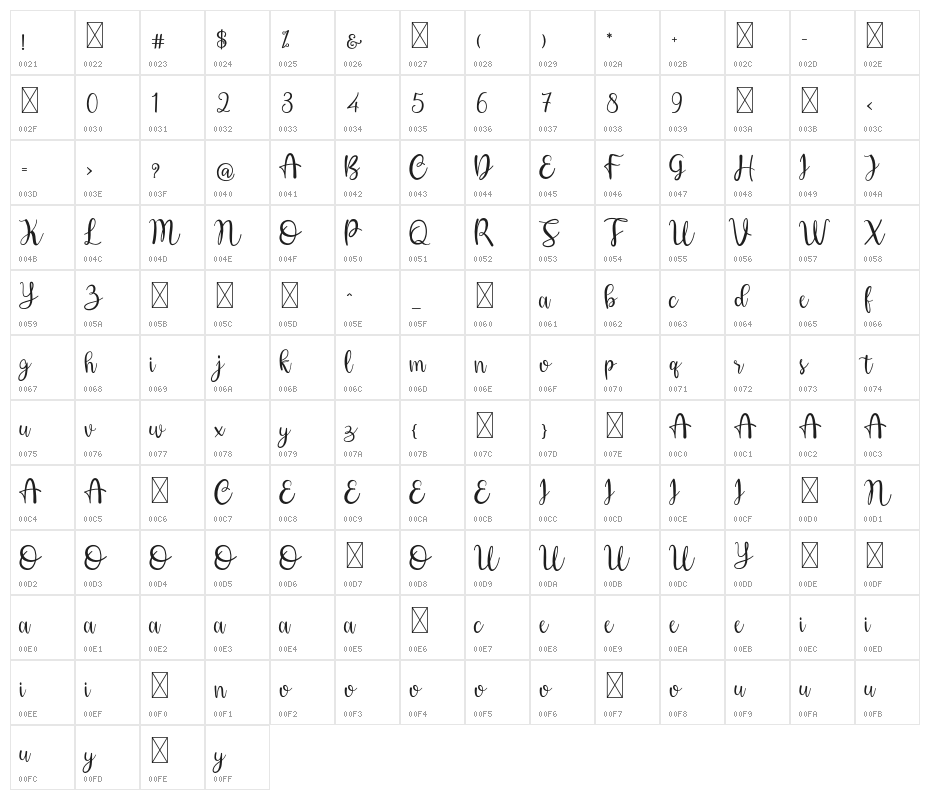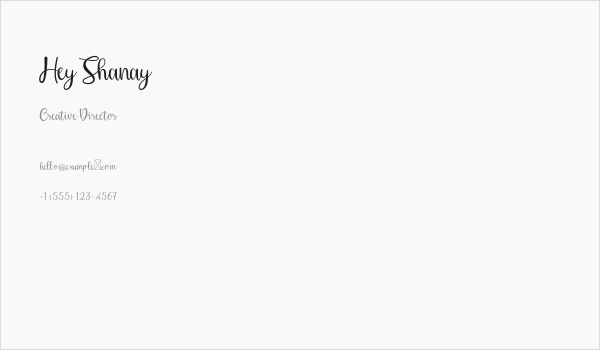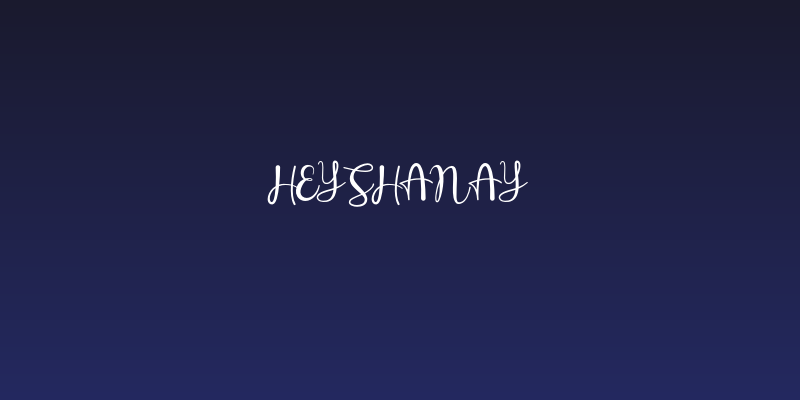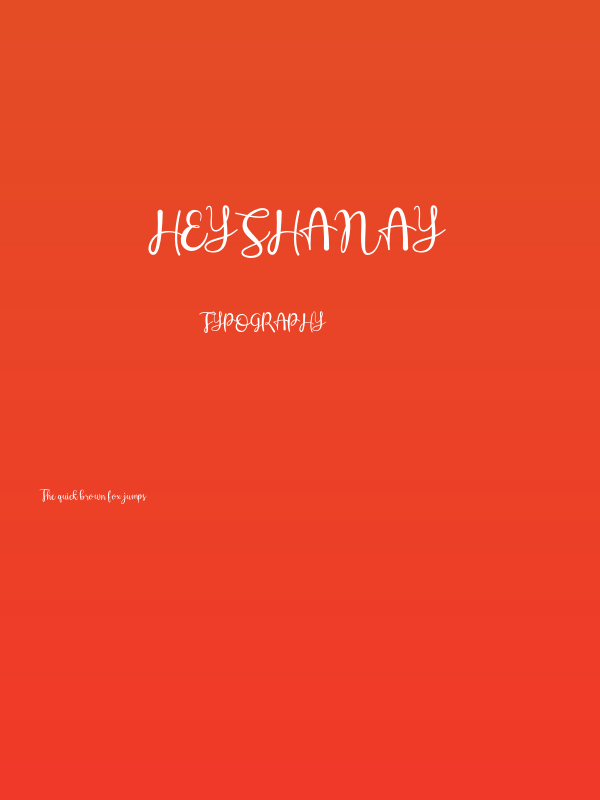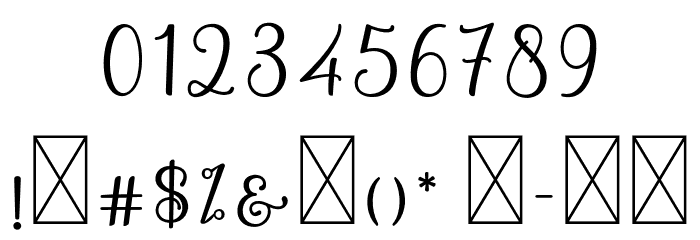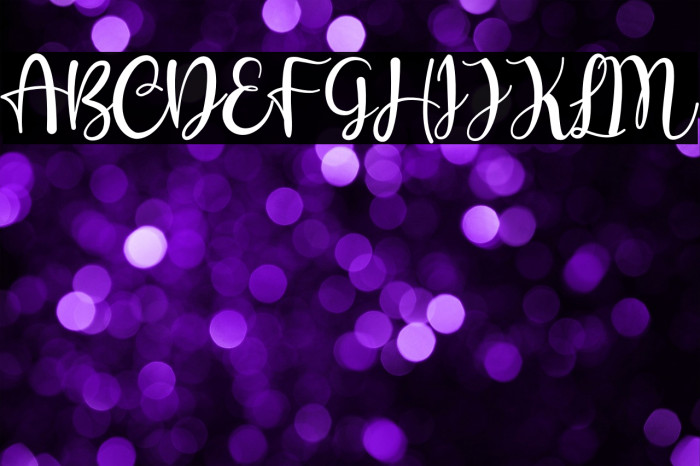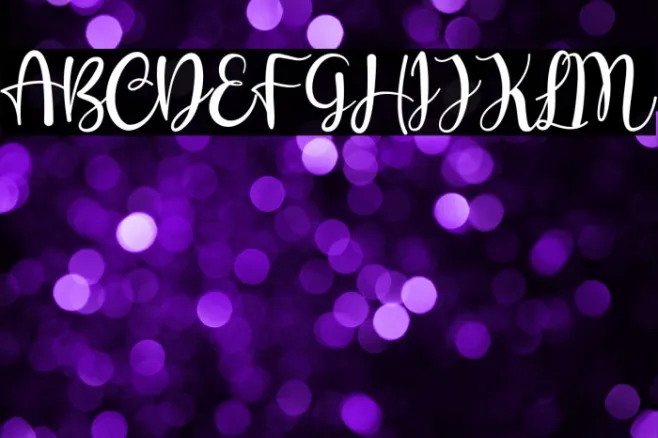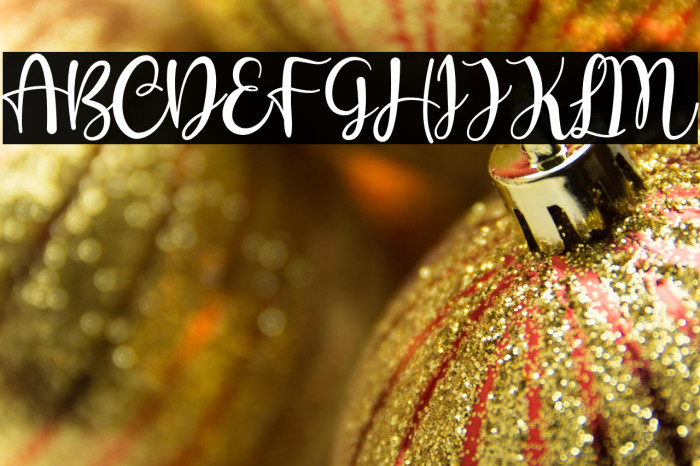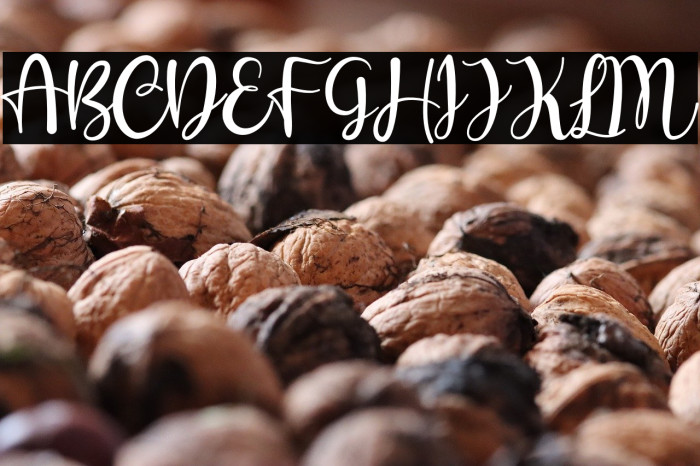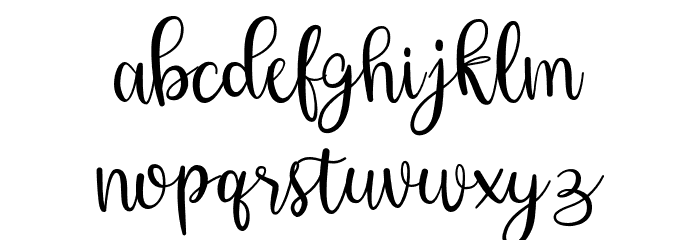
HeyShanay Font
HeyShanay Description
This font features a playful and elegant script style with a handwritten appearance. The characters are fluid and connected, giving a sense of motion and grace. The uppercase letters are bold and slightly exaggerated, while the lowercase letters maintain a consistent flow. The numbers are clear and easy to read, matching the overall style. Special characters are creatively designed, adding a touch of whimsy. This font is perfect for projects that require a personal and artistic touch, such as invitations, greeting cards, and branding materials.